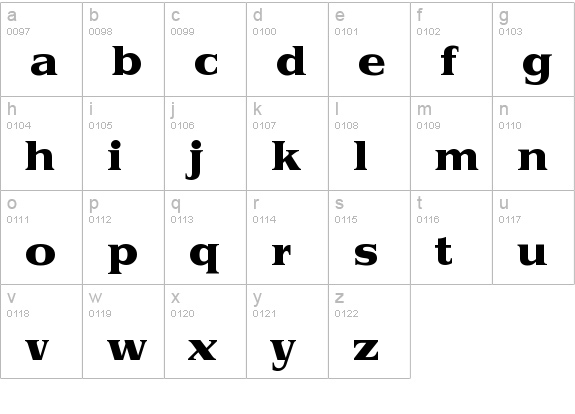
PriamosSerial-Heavy-Regular is a heavy, high-impact variant in the PriamosSerial typeface family \xE2\x80\x94 well suited to high-impact headlines, posters, and display advertising.
PriamosSerial-Heavy-Regular is a bold and commanding typeface that demands attention with its strong, sturdy letterforms. Perfect for headlines, posters, and other display purposes, this font exudes a sense of power and authority. Its thick strokes and tall x-height give it a modern and impactful look that is sure to make a statement. What sets PriamosSerial-Heavy-Regular apart is not only its striking design but also its accessibility. This font is available for free download at FontsMarket.com, making it easy for designers and creatives to incorporate it into their projects without any barriers. Whether you're working on a branding project, advertising campaign, or any other design endeavor, PriamosSerial-Heavy-Regular is a versatile and reliable choice that will help you stand out from the crowd. Download PriamosSerial-Heavy-Regular for free today at FontsMarket.com and unleash its bold and authoritative style in your next design project.